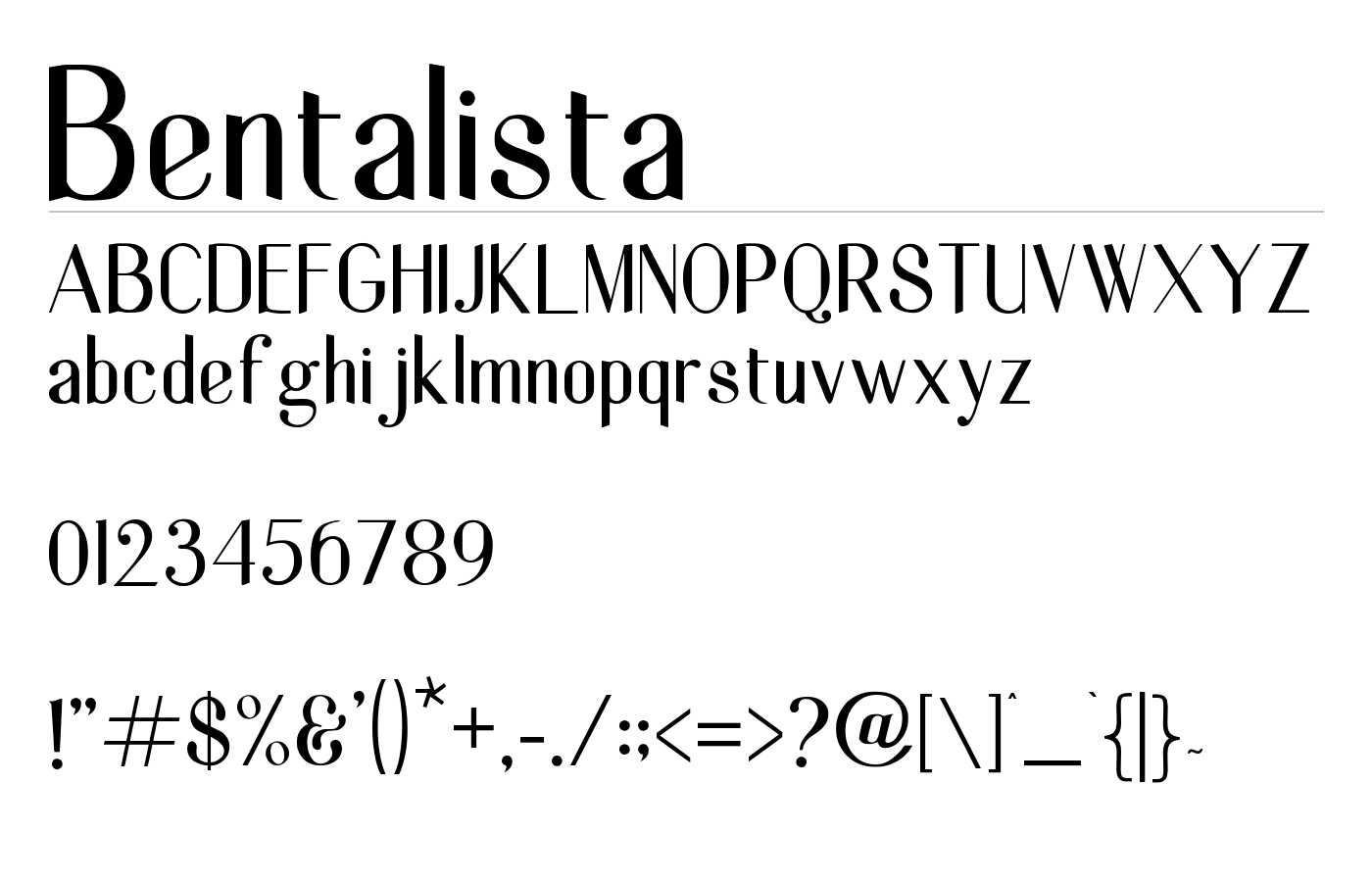
Bentalista is a distinctive serif font blending modern elegance with quirky charm through its varied stroke widths and unusual letter shapes. Its tall, narrow forms and unique details like the stylized terminals and asymmetrical elements make it ideal for creative headlines, fashion branding, and editorial projects where a sophisticated yet playful personality is desired. This font shines in display settings, adding character and flair without sacrificing readability.
Bentalista Font
About Bentalista Font
| Font family | Bentalista Font |
| Designer | zamjump studio 2020 - Ahmad Zamzami |